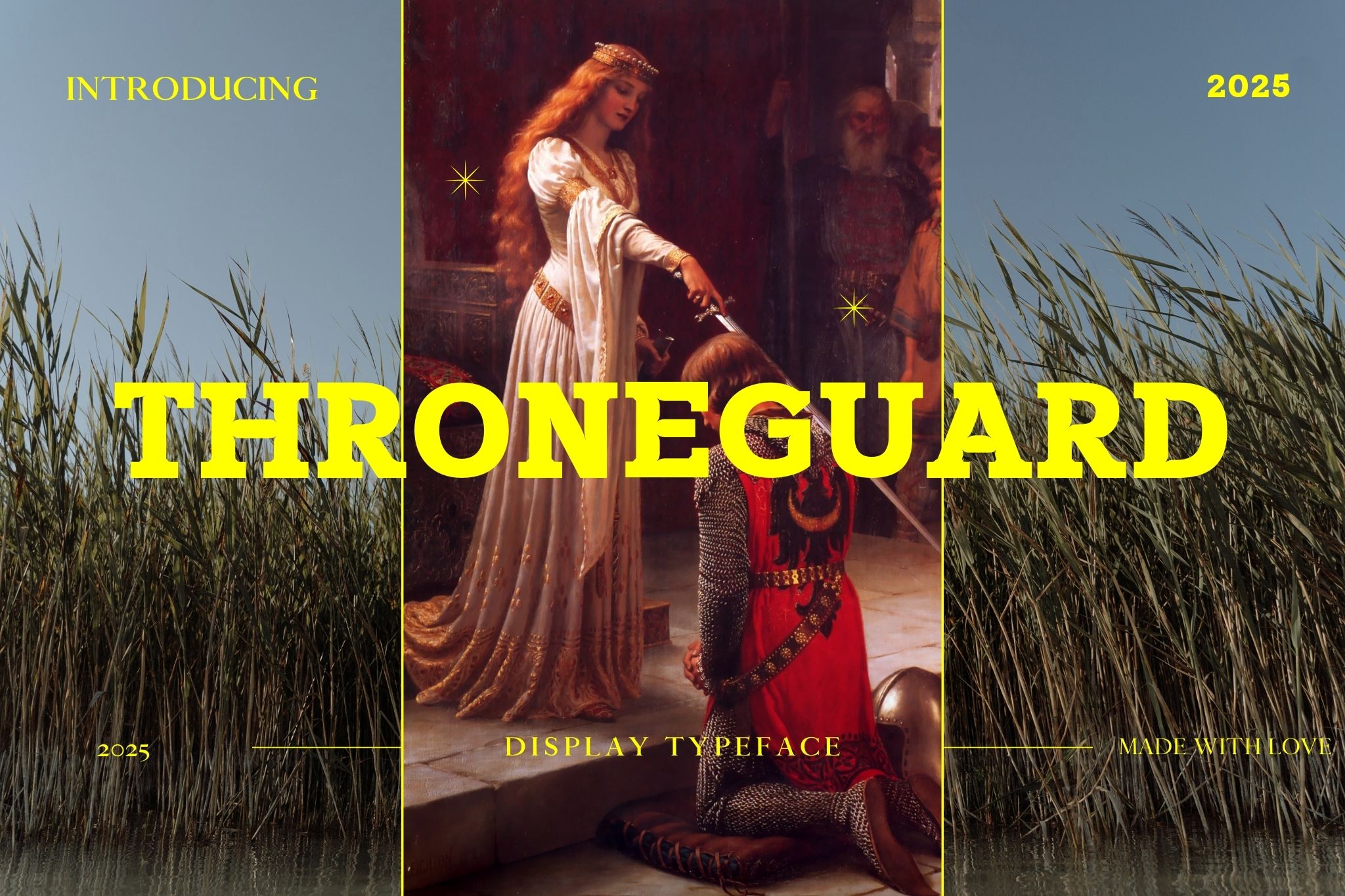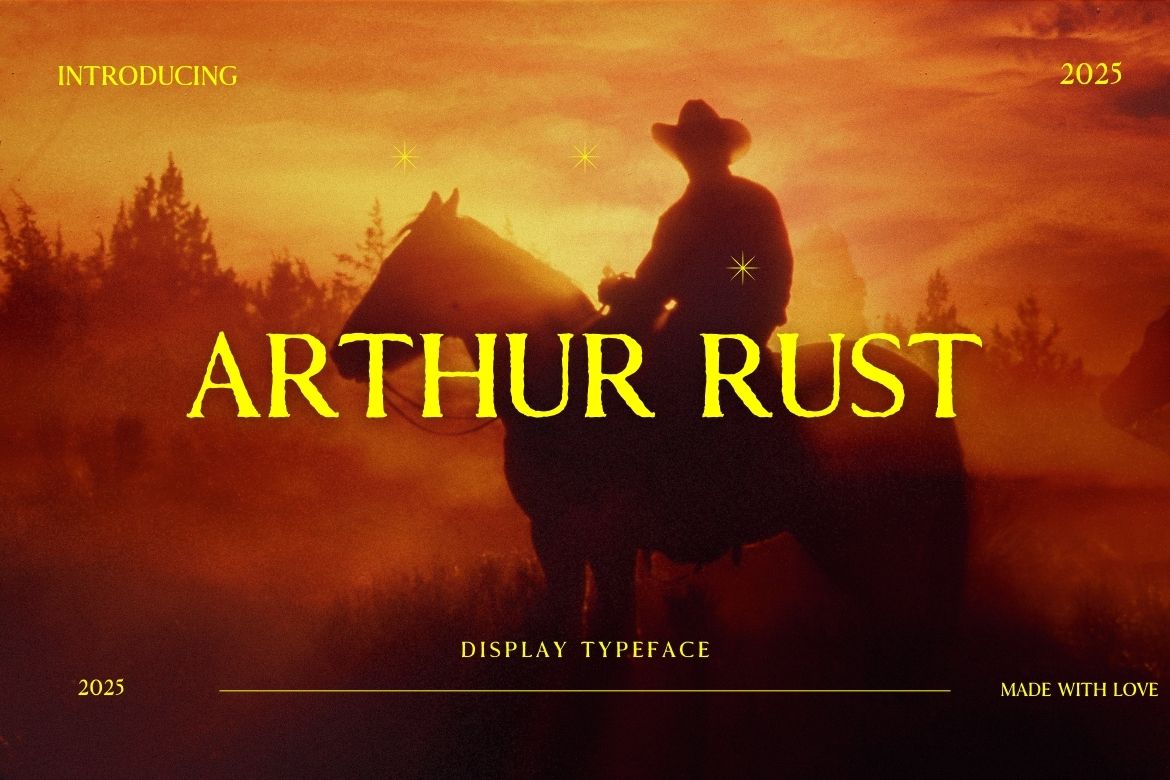
Streetwear fonts are bold, edgy, and full of personality—just like the fashion they represent. In 2025, these fonts are playing a big role in how streetwear brands stand out. From graffiti-inspired styles to clean modern lettering, the right font can completely change the vibe of a brand. Whether you’re designing a logo, clothing label, or social media post, the font you choose says a lot about your message.
As streetwear continues to blend fashion, music, and culture, brands are turning to fonts that speak to their identity. These aren’t your everyday typefaces—they’re crafted to make a statement. In this list of 50+ best streetwear fonts, you’ll find designs that reflect rebellion, confidence, and creativity. Perfect for artists, designers, and brands looking to stay ahead of the curve in 2025.
Classic Streetwear Fonts
These fonts capture the original spirit of streetwear – bold, rebellious, and unmistakable
Arthur Rust – A Western Serif Font
Zayan Luxury Font
Zayan Luxury Font is a classy serif typeface with a polished and upscale feel. Its bold yet refined letters make it a great choice for luxury branding, wedding invitations, magazine covers, and premium packaging. Whether you’re aiming for timeless elegance or modern sophistication, this font delivers a sleek and exclusive touch.
Throneguard Display font
Retrola Ink Font
Retrola Ink Font is a refined and sophisticated serif typeface with a touch of vintage charm. Designed for elegance and readability, this font combines classic aesthetics with a modern edge. Whether you’re working on branding, editorial layouts, movie posters, or book covers, Retrola Ink Font provides a luxurious and bold presence.
Stronghold Freak Font
Stronghold Freak Font is a bold and commanding typeface designed to make an impact. With its strong, structured characters, it adds power and clarity to your designs. This font is perfect for a variety of projects, including logos, headlines, posters, and branding. Its clean yet bold appearance ensures your message is both striking and easy to read.
Pluvix Luxury Font
Pluvix Luxury Font is perfect for you! It’s stylish, bold, and easy to use, making your projects look polished and professional.
Cyber Chunk Font – Modern Futuristic Font
Cyber Chunk Font is a modern and bold typeface designed to give your work a sharp, futuristic feel. Its smooth lines and unique wave details are great for everything from logos and titles to web design and branding. This flexible font adds a fresh look to tech designs, sci-fi themes, and more.
Caelan Serif Font Family
Caelan is a urban and minimalist serif hyperwave font pack. It comes with 3 weights: Regular, Round and Bold versions, which contains complete basic glyphs with multilingual support.
Bandbox | Athletic Script Typeface
Inspired by classic sport logo lock-ups, Bandbox delivers with its heavy, streaming cursive letterforms. Bandbox’s wide, gently-sloped script comes bundled with a collection of ligatures and 18 athletic swash banners, perfect for logotype, posters and t-shirt designs.
SynthSyntax – Streetwear Typeface
SynthSyntax empowers you to infuse your projects with a fresh, urban aesthetic that’s bound to turn heads and spark conversations. Its bold strokes and sleek lines evoke a sense of artistic rebellion, making it the perfect choice for logos, posters, branding, or any project that demands a dose of unconventional style.
SHIRENS Streetwear Fonts
SHIRENS is a font inspired by Emo/metal/harcore music scene and the hype street wear/apparel. include uppercase and lowercase, ligature and alternate style,and also multilingual support.
Dexgraffiti Return – A Streetwear Font
DHF Dexgraffiti Return is a novelty font published by Majestype.
SynthSyntax – Streetwear Fonts
Modern with a retro twist, ideal for standout branding.
Wushand – Streetwear Font
Edgy and raw, capturing the street essence.
Warxer Streetwear Font
Aggressive and forward, for brands that mean business.
Point Panther Streetwear Fonts Pack
Sharp and edgy, perfect for cutting-edge designs.
Baurems – Outline Bubble Streetwear Fonts
Baurems is inspired by the trends of the graffiti era back in the 90s and the y2k era. The glory of spray paint and mixed media visuals in the art and graphic design industry.
Xandercode – Urban Streetwear Font
Urban and gritty, for authentic street brands.
Vandals Puppies – Thick Streetwear Font
Thick and impactful, making a strong statement.
Thishub – Monoline Streetwear Font
Sleek and modern, for a clean look.
Modern and Futuristic Fonts
These fonts blend streetwear attitude with futuristic design, perfect for innovative brands.
Masifer – Sporty Futuristic Streetwear Fonts
Wrapping up
So, what’s the big deal with these fonts? They are more than just letters on a shirt. They’re a way to shout out who you are without saying a word. Whether it’s the street art-inspired graffiti groove or the sleek and sharp urban edge, each font has its own story. They aren’t just part of streetwear; They’re streetwear. As we continue to see these fonts, they’ll become more than just a trend – they’ll become a mainstream thing, changing the way we think about style in streetwear.